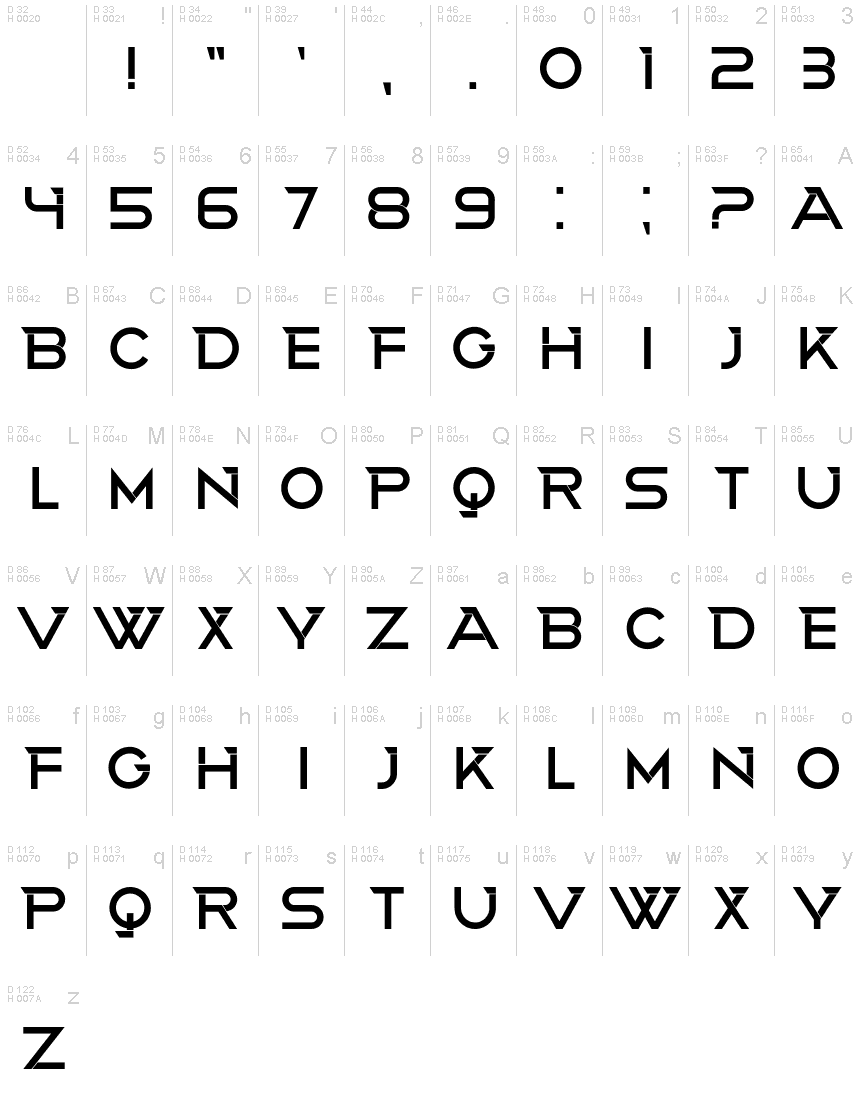
Hitch Hiked Regular
Hitch Hiked, designed by Vladimir Nikolic, is a captivating display font with a semi-expanded width. Its unique and eye-catching style makes it perfect for a variety of creative projects.
For advertising campaigns seeking an edgy and adventurous vibe, Hitch Hiked adds a touch of excitement to logos, posters, and billboards. In the world of fashion, this font lends itself well to magazine covers and brand identities looking to make a bold statement.
With its distinctive personality, Hitch Hiked is also an excellent choice for album covers or book titles that want to stand out on the shelf.